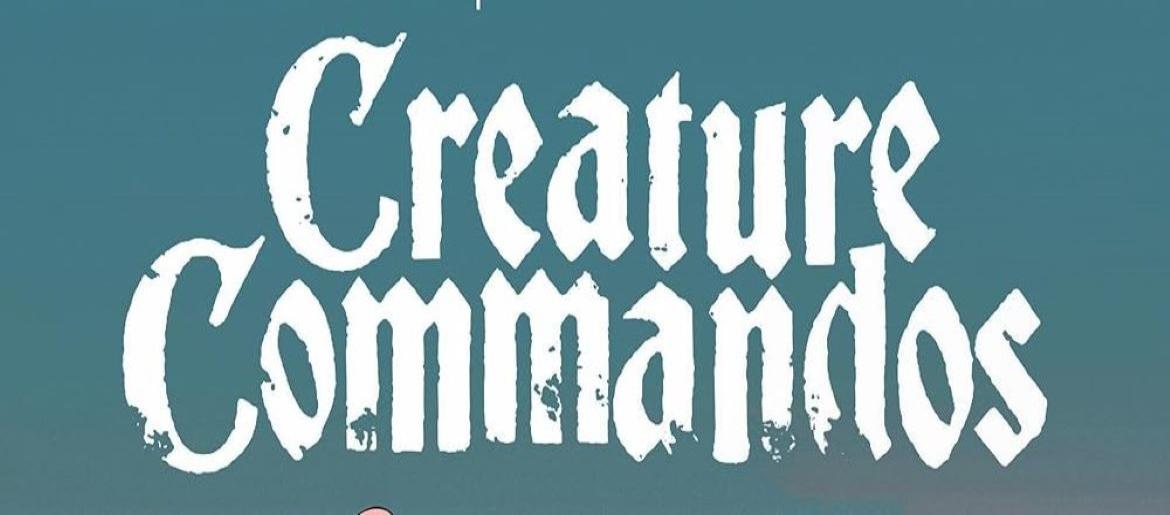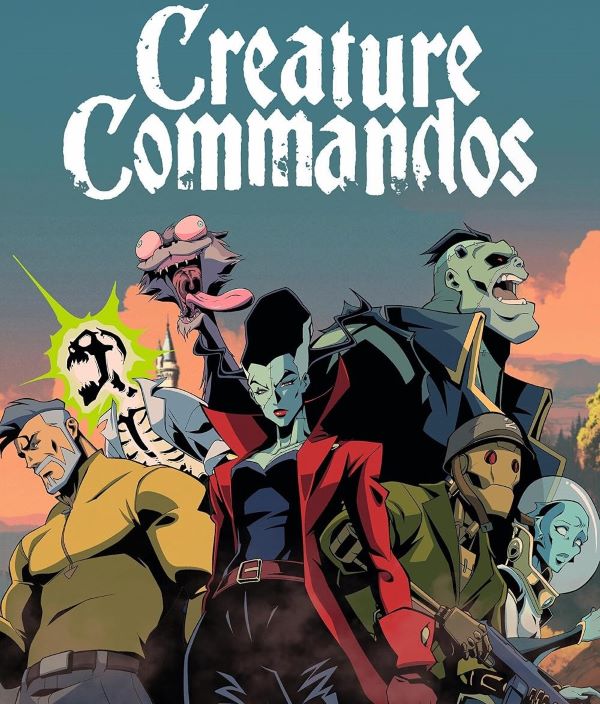
Creature Commandos Font
What Font is Creature Commandos?
The Creature Commandos Font used in the title of the series closely mirrors the premium serif typeface Bradley Pro Regular. It combines bold letterforms with a subtly distressed, vintage aesthetic—perfectly reflecting the monstrous, militaristic tone of the show.
Because Bradley Pro Regular is a commercial font, we’ve identified a high-quality free alternative that captures the same bold, classic serif feel with just the right hint of character—ideal for designers aiming to recreate the gritty style of Creature Commandos.